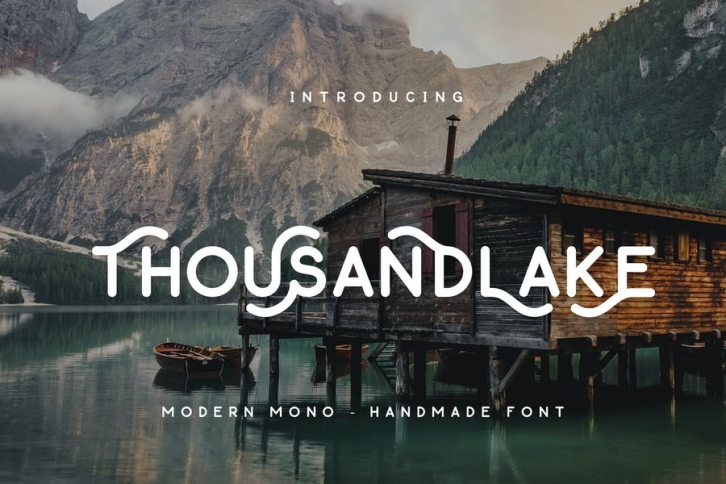
Thousand Lake - Handmade Font Download
We Provide You one of the best Hand Written Script. Best match for logos, header, Titles, Prints & other Creative process possibilities.
Create a Extraordinary Typography / lettering results by using Thousand Lake - Handmade Fonts